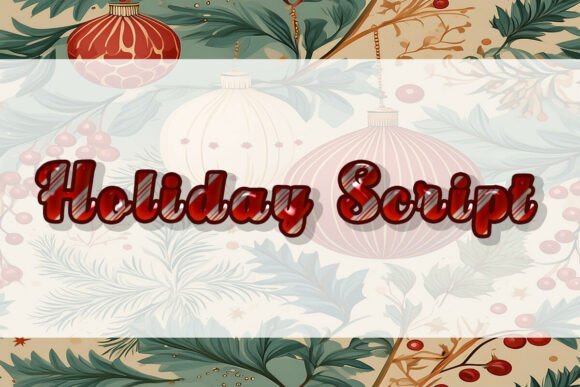
Unleash the Magic of the Holiday Season with the Perfect Font
Have you ever stared at a blank design space, searching for the perfect font to bring your creative vision to life? You know that moment when everything falls into place, and the design just flows? That’s what we’re here to help you achieve with the Holiday Script Font.
This charming font is more than just a typeface – it’s a trusted design partner that adds a touch of elegance and sophistication to any project. Whether you’re creating a whimsical sticker, enhancing a brand identity, or crafting a heartfelt greeting card, the Holiday Script Font is the perfect fit. Its versatility and alluring flair make it a valuable asset for designers looking to elevate their creative expressions and stand out from the crowd.
Holiday Script Font Key Features
- Unique Characteristics: The Holiday Script Font features a beautiful, hand-drawn design with intricate details and ornaments, perfect for adding a touch of elegance and sophistication to your designs.
- Style Options: The font includes multiple style options, including regular, bold, italic, and bold italic, allowing you to create a range of visual effects and emphasis in your designs.
Holiday Script Font Review
I recently had the chance to work with the Holiday Script Font, and here’s my honest take on it. ✨ One thing that really stands out is the elegant, handwritten feel of the font. It’s perfect for creating a warm and festive atmosphere, especially during the holiday season. The flourishes and swashes add a touch of sophistication, making it ideal for invitations, greeting cards, and other special occasion designs.
- ✨ Elegant, handwritten feel that’s perfect for holiday designs
- ✨ Wide range of styles and weights to choose from
However, I did encounter a few limitations ⚠️. The font can be a bit too ornate for some designs, which may make it difficult to read at smaller sizes. Additionally, the file sizes can be quite large, which may slow down your design process. Lastly, I found the font to be a bit glitchy in some design programs, which can be frustrating.
- ⚠️ Can be too ornate for some designs
Overall, I think the Holiday Script Font is a great addition to any designer’s toolkit. While it may have some limitations, its unique charm and elegance make it a great choice for holiday designs. With a little patience and experimentation, you can unlock its full potential and create some truly stunning designs.
Holiday Script Font is ideal for creating festive and playful designs for:
- Christmas cards and invitations
- New Year’s Eve party invitations
- Thanksgiving and holiday-themed social media posts
- Gift tags and labels
Tips for Getting the Most Out of Holiday Script Font
To get the most out of Holiday Script Font, try:
- Combining it with bold and italic fonts for added visual interest
- Using it in conjunction with festive graphics and images
- Choose a warm and cozy background color, such as a soft blue or green.
- Select a combination of elegant graphics, such as snowflakes or flowers, to complement the font.
- Combine the font with a classic script font, such as Copperplate or Brush Script, for a balanced look.
Create a festive and engaging holiday card for your social media followers using Holiday Script Font. This font adds a playful and cheerful touch to the card, making it perfect for the holiday season.
Project 3: Holiday Menu Board
Create a festive and eye-catching holiday menu board using Holiday Script Font. This font adds a touch of elegance and sophistication to the menu, making it perfect for a holiday dinner party or a special event.